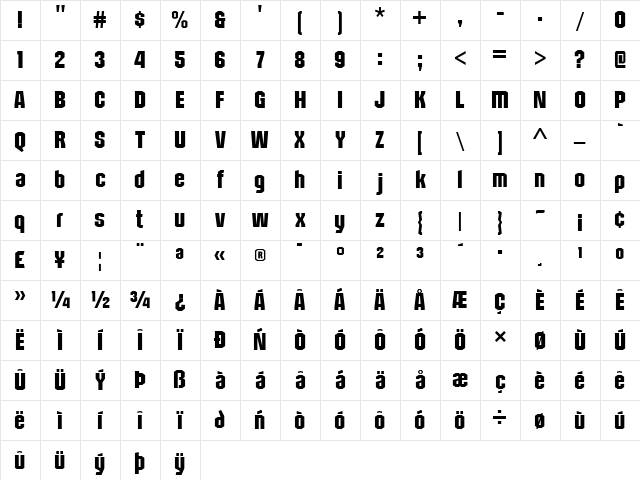
Structia Rg Regular
Structia Rg Family
Design Context for Structia Rg
Structia Rg is a composed and adaptable typeface that performs quietly and consistently across a wide range of design contexts.